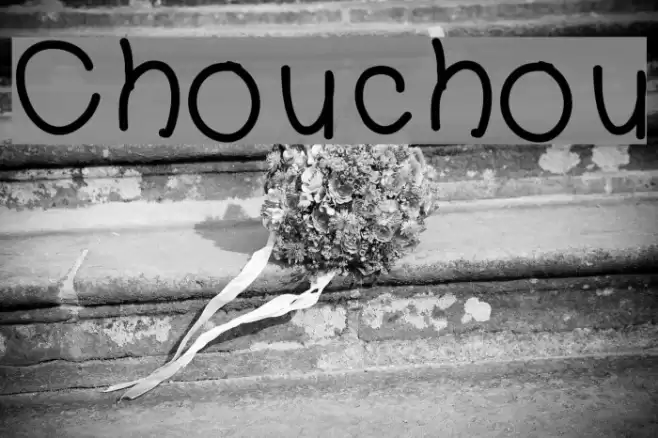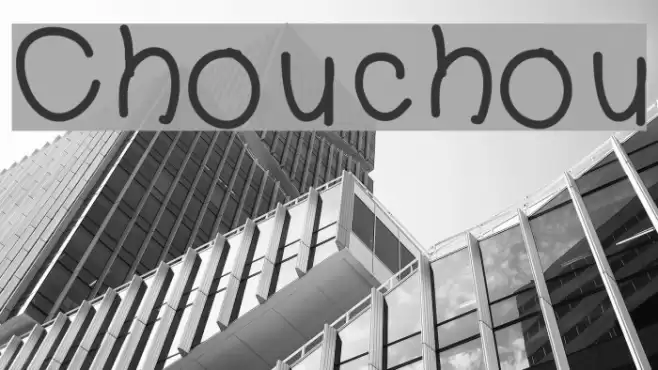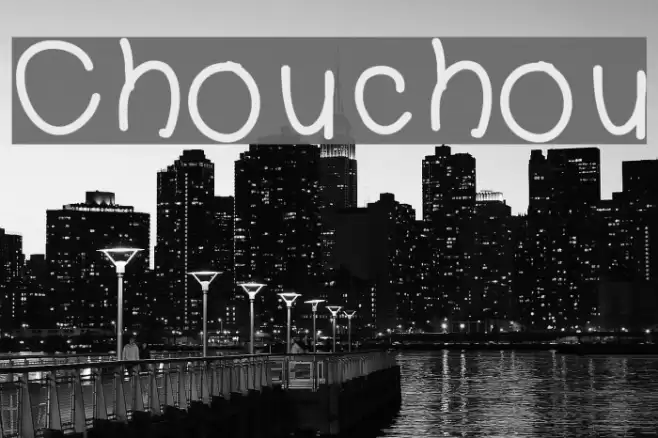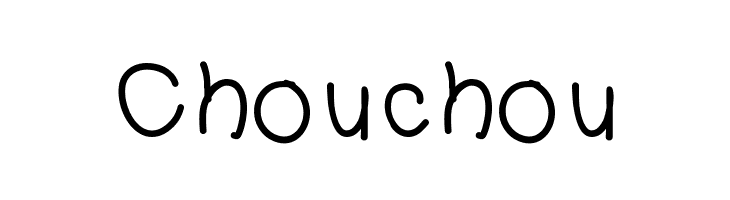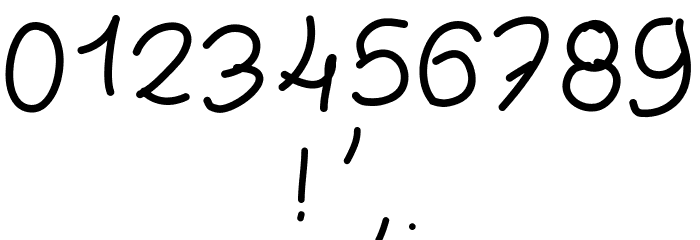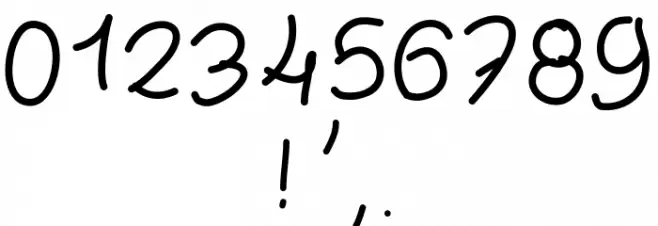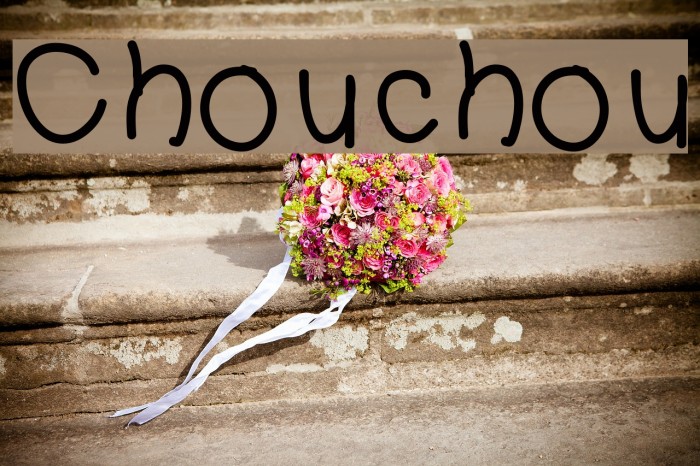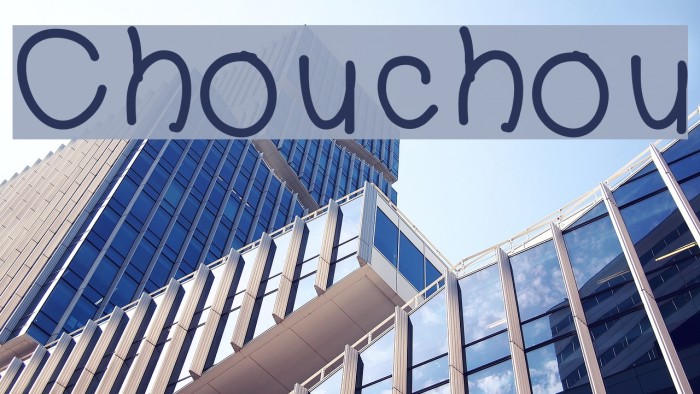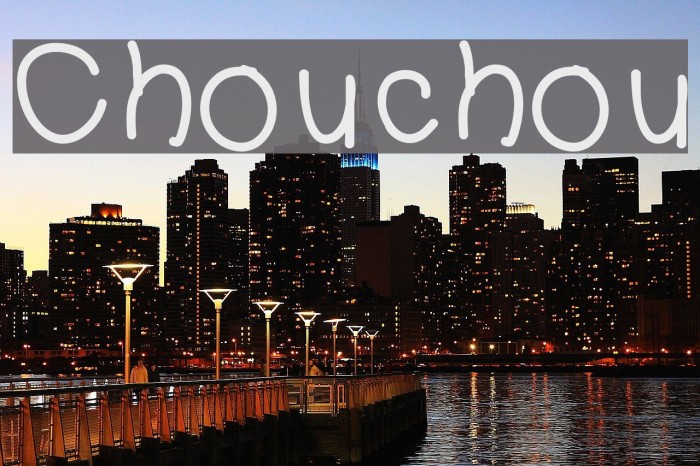
Chouchou Font
Chouchou Description
This playful and whimsical font features rounded, hand-drawn characters that convey a sense of fun and creativity. Each letter has a unique, slightly irregular shape, adding to its charm and personality. The strokes are consistent in thickness, providing a uniform appearance while maintaining a casual, informal style. The numbers and special characters follow the same playful design, making the font versatile for various uses. Its friendly and approachable look makes it ideal for projects that require a touch of warmth and individuality.
A playful, hand-drawn font with rounded, whimsical characters from Uncategorized fonts.
- Proposed Projects: Ideal for children's books, greeting cards, playful branding, and creative projects.
- Overall Style: Playful
- Use Case: Headlines, Logos, Creative projects